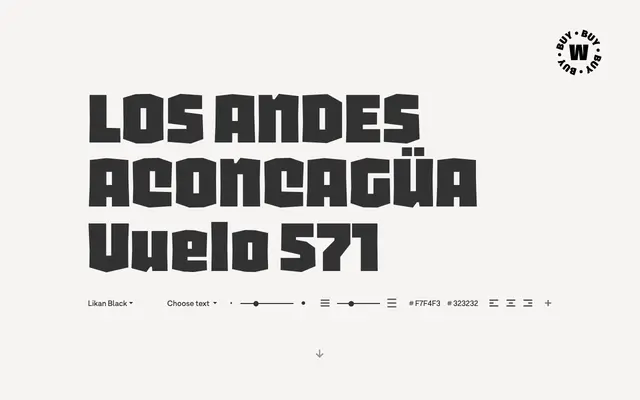
Likan
An angular display face by Mauricio Adasme, drawing on Expressionist style and Gothic calligraphy, with sharp incisions evoking the volcanic terrain of the southern Chilean Andes.
Named after a Mapuzungun word relating to rock or flint, Likan uses broken, angular strokes and sharp cut entries that give the letterforms a raw, geological quality. The design bridges Expressionist graphic traditions and Gothic calligraphy, resulting in a face suited to editorial headlines, posters and identity work with a strong sense of place. Available in three weights, Regular through Black.
Likan draws from Expressionist style and Gothic calligraphy with angular, broken strokes and sharp incisions, placing it firmly in the display category with blackletter heritage rather than a functional text face.